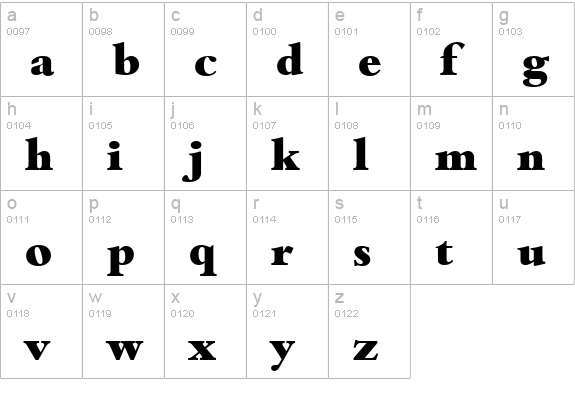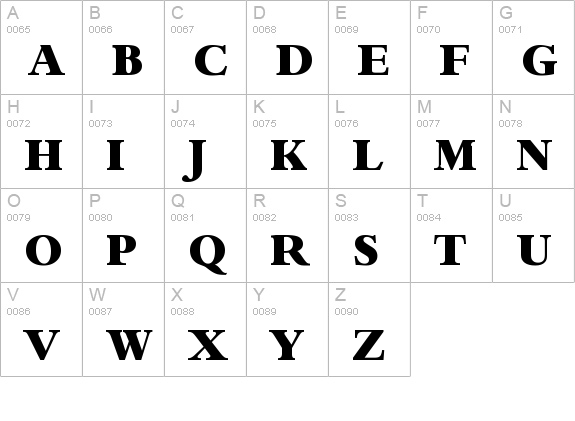
BambergSerial-Heavy-Regular is a heavy, high-impact variant in the BambergSerial typeface family \xE2\x80\x94 well suited to high-impact headlines, posters, and display advertising.
BambergSerial-Heavy-Regular is a bold and eye-catching font that exudes strength and confidence. With its thick strokes and distinctive design, this font is perfect for making a bold statement in your projects. Whether you're creating posters, headlines, or branding materials, BambergSerial-Heavy-Regular will command attention and leave a lasting impression. The best part? BambergSerial-Heavy-Regular is available for free download at FontsMarket.com. That's right, you can enhance your designs with this impressive font without spending a dime. So why wait? Download BambergSerial-Heavy-Regular today and take your designs to the next level!